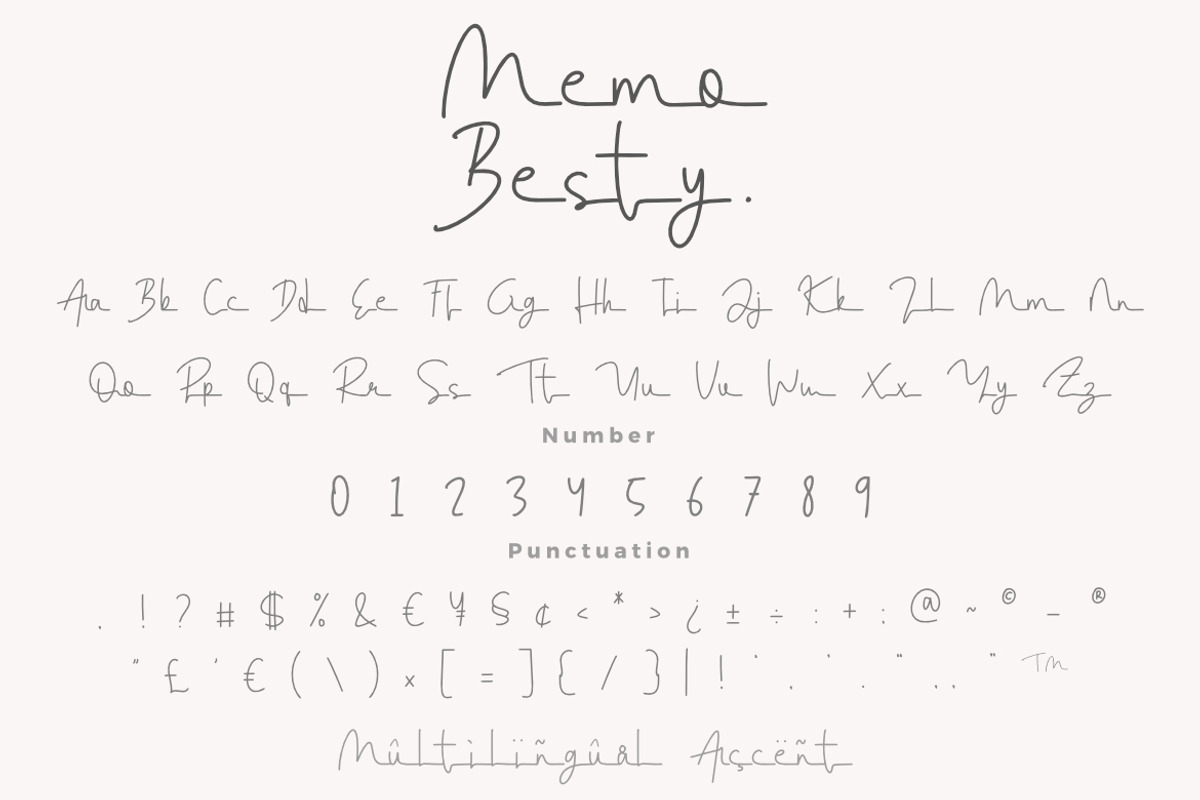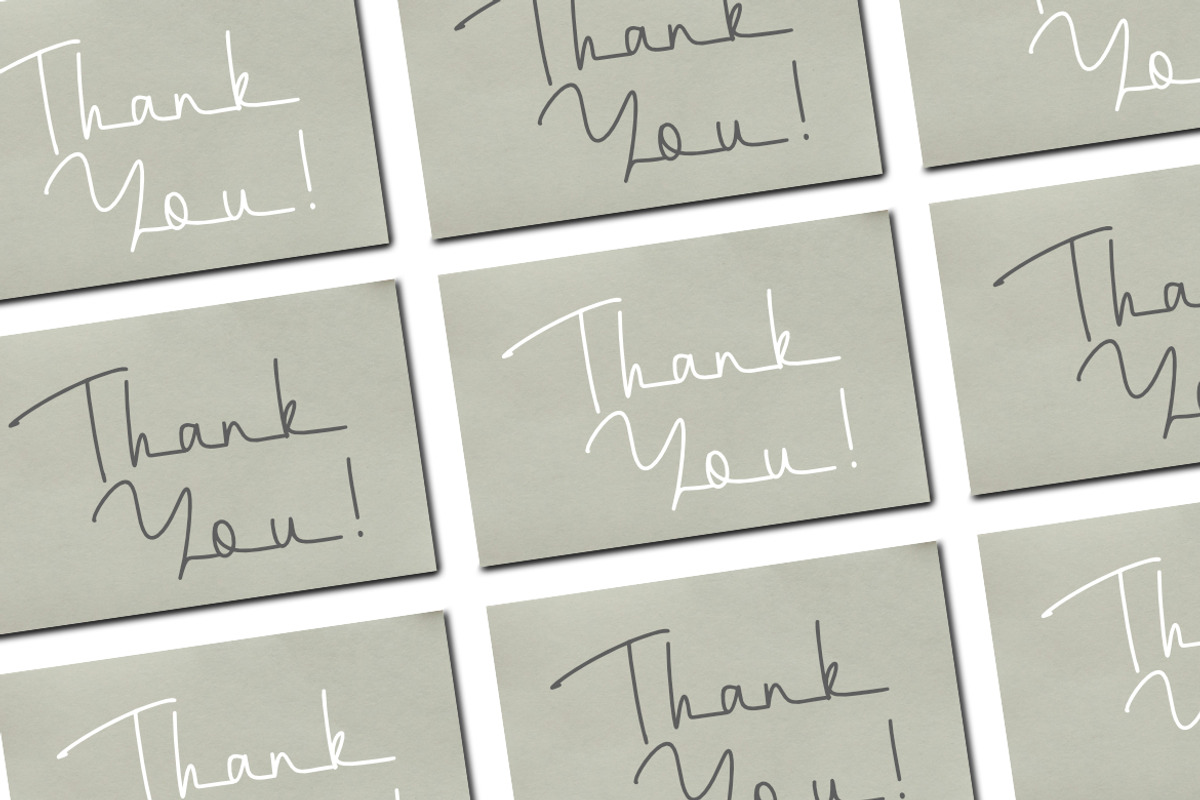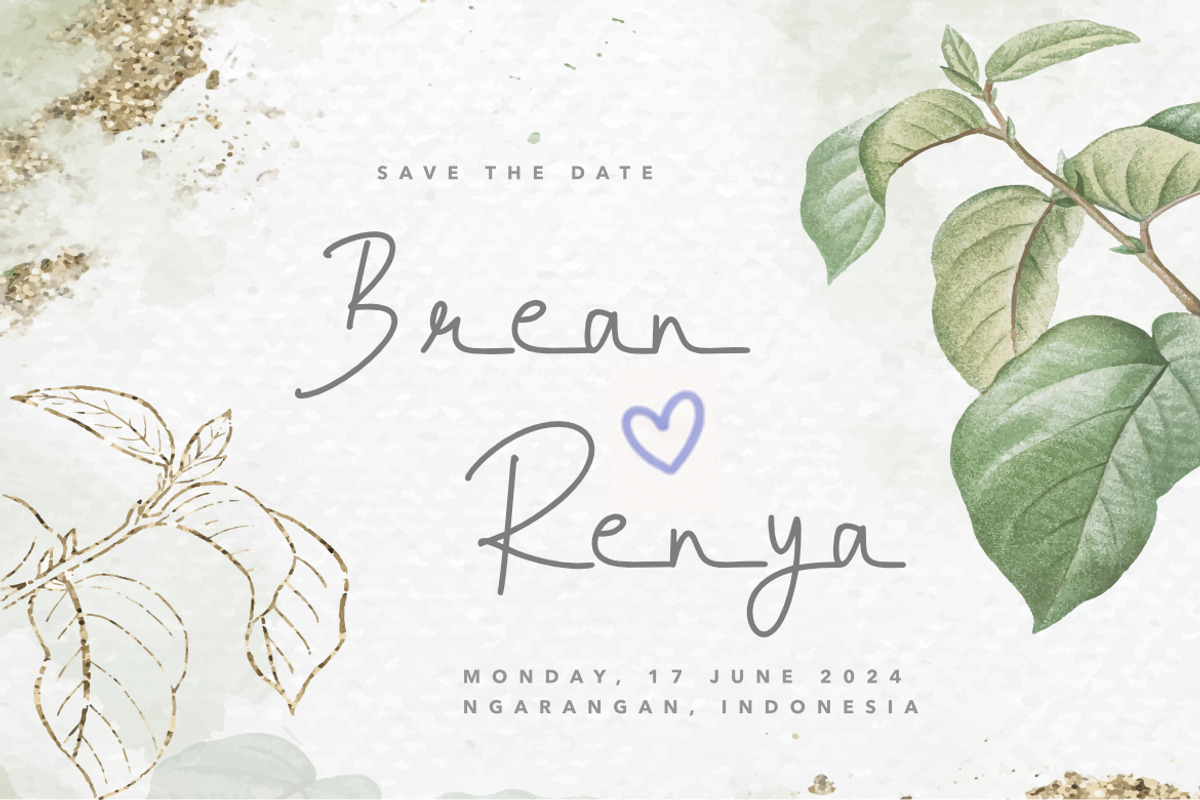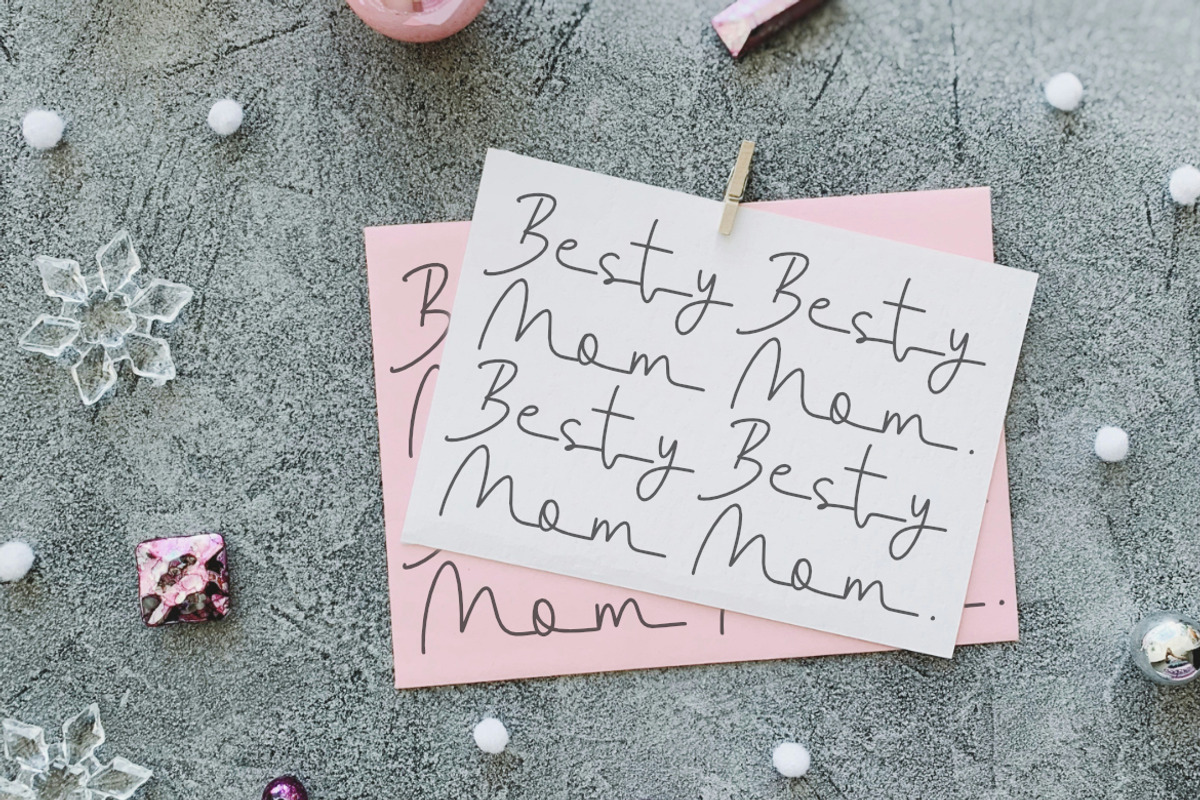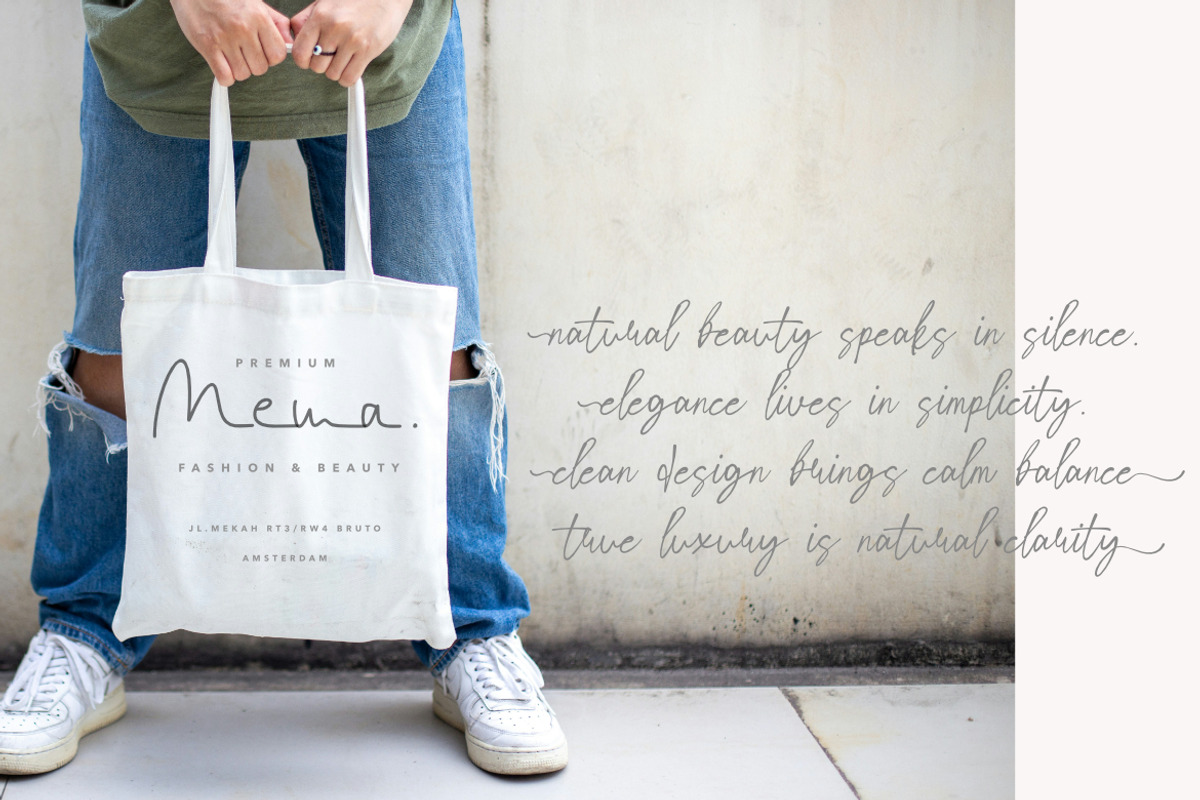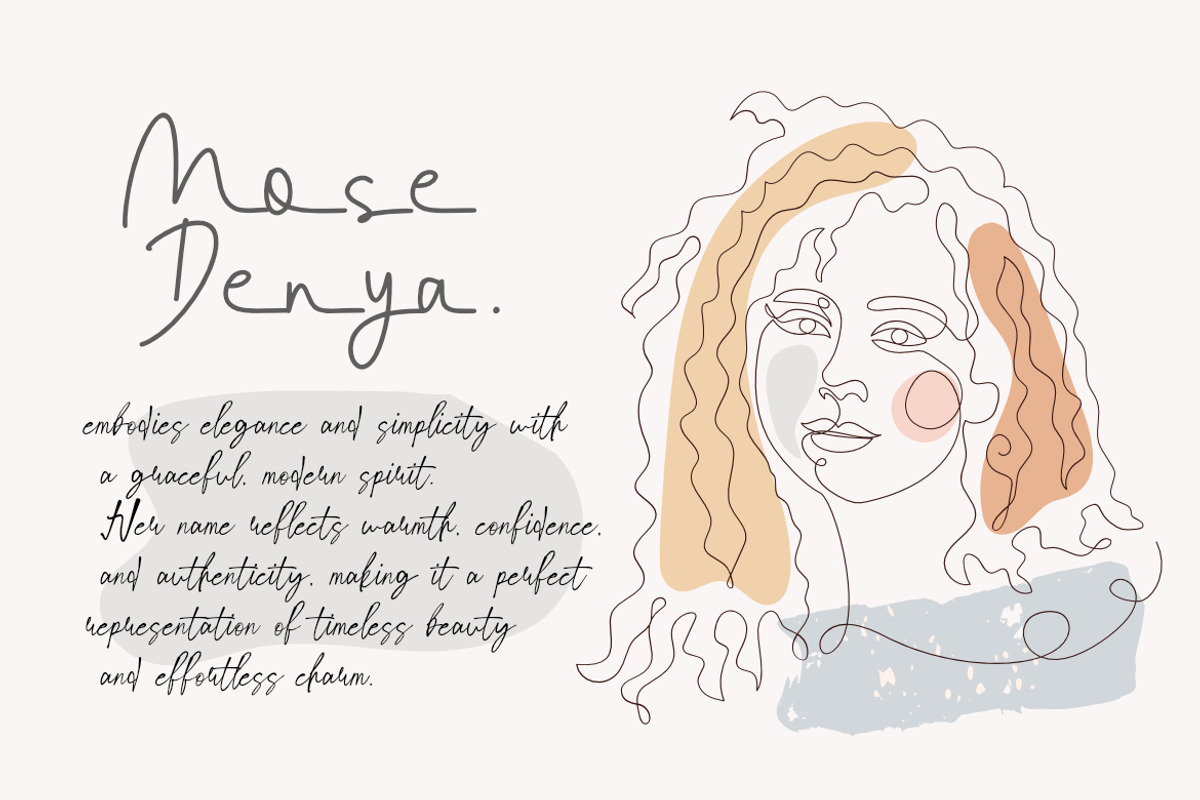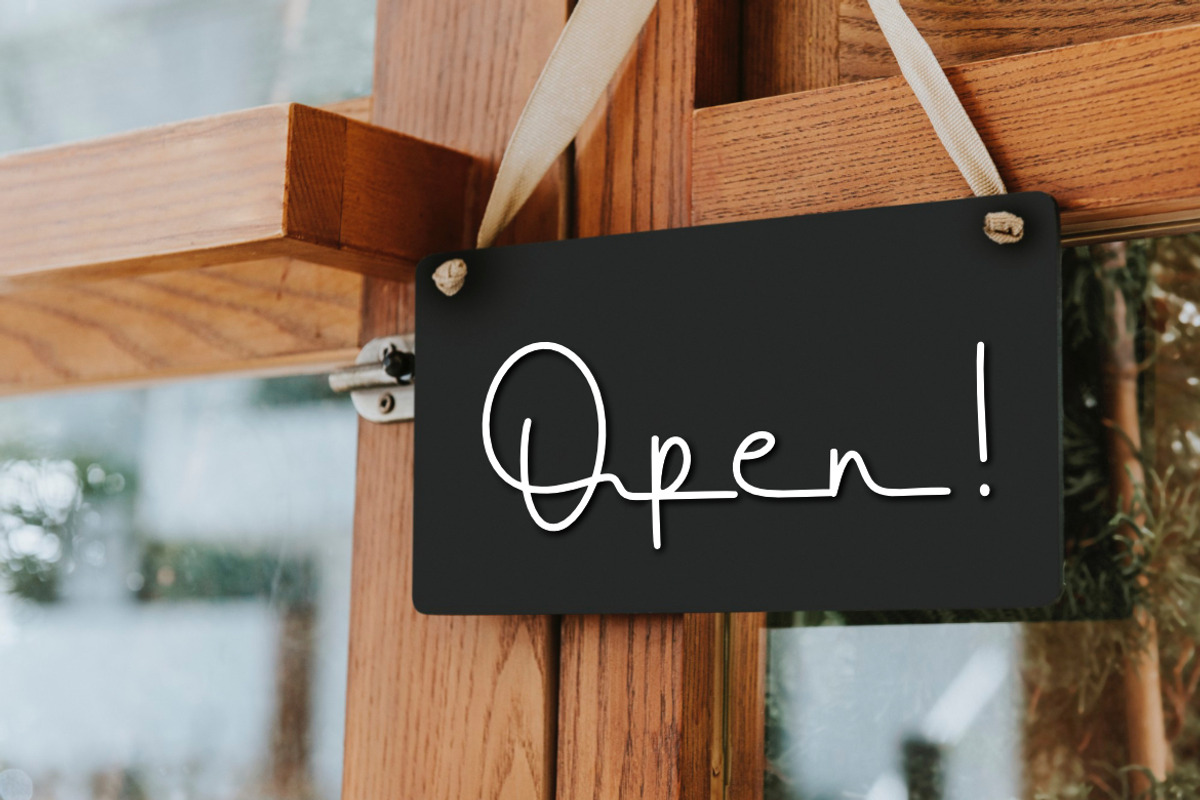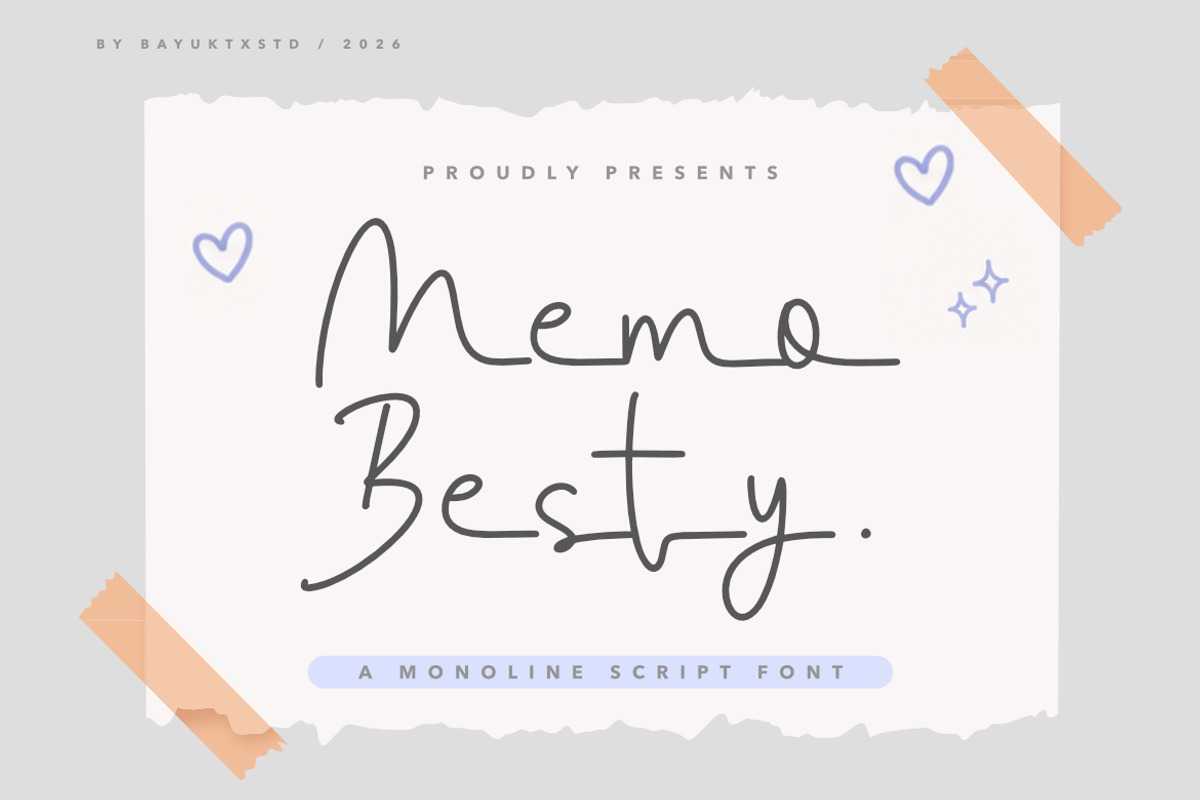
Memo Besty a Monoline Script Font
Memo Besty – Monoline Script Font
Memo Besty is a refined Monoline Script Font that blends clean handwritten strokes with elegant simplicity, creating a timeless and modern signature aesthetic. Inspired by natural pen movements and contemporary minimalism, this typeface features smooth continuous lines, balanced proportions, and graceful curves that deliver a soft yet sophisticated visual personality.
Designed with precision, Memo Besty offers beautifully connected letterforms that maintain excellent readability while preserving the charm of authentic handwriting. Its flowing monoline construction creates a clean, premium appearance, making it ideal for projects that require elegance without unnecessary ornamentation.
The font delivers a harmonious balance between casual warmth and professional refinement. Whether used for luxury branding, stylish logos, invitations, social media, or premium packaging, Memo Besty adds a distinctive handwritten character that feels modern, graceful, and effortlessly beautiful.
Key Features :
* Uppercase & Lowercase Characters
* Numerals & Punctuation
* Multilingual Support
* PUA Encoded & OpenType Features
* Elegant Monoline Script Style
* Smooth Connected Letterforms
* Clean Handwritten Appearance
* Modern Signature Aesthetic
* Minimalist & Timeless Design
Suitable For :
* Luxury Branding
* Logo Design
* Wedding Invitations
* Beauty & Fashion Branding
* Signature Logos
* Product Packaging
* Cosmetic Labels
* Social Media Graphics
* Photography Watermarks
* Editorial Design
* Greeting Cards
* Modern Typography Projects
With Memo Besty – Monoline Script Font, every design captures the beauty of clean handwriting and modern elegance. Its smooth monoline strokes and naturally flowing characters provide a premium handwritten style, making it an excellent choice for sophisticated branding, stylish packaging, elegant invitations, and contemporary creative projects.